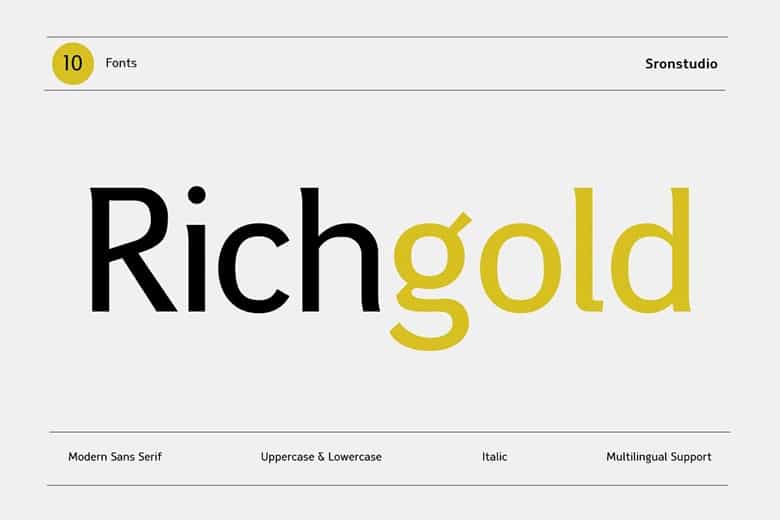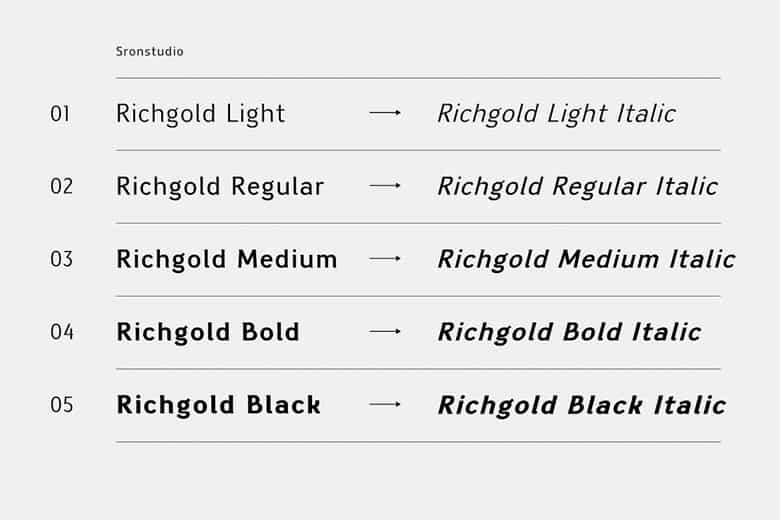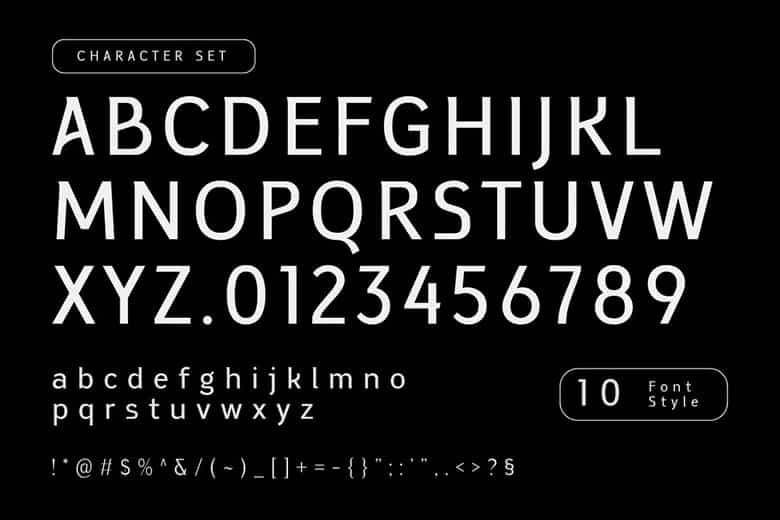
Richgold is a new clean sans serif font family that can be used for all types of projects due to its updates with modern style. That’s why this font is good for branding, headlines, logos, websites, and other designs, as well as for papers and magazines. Its simplicity reflects an elegant appearance that is more professional and adds a professional style and cuts across all professional projects.